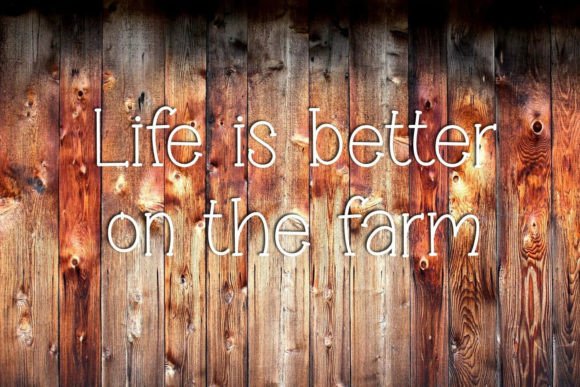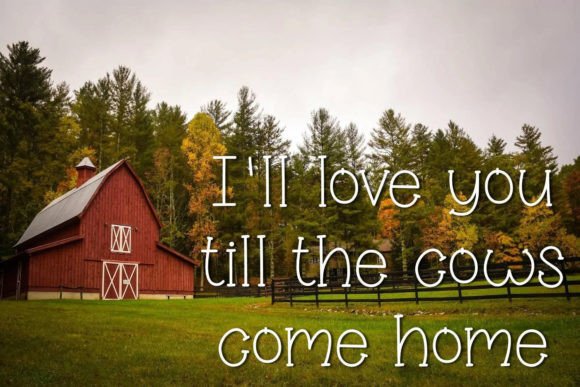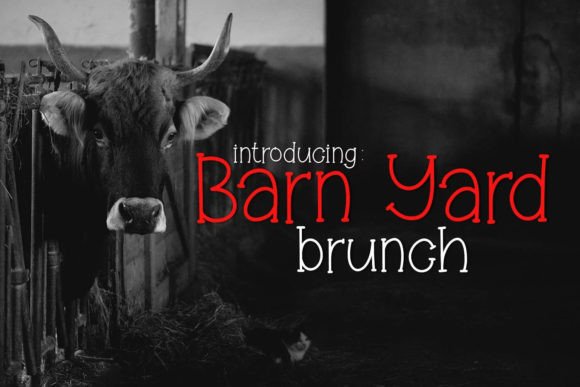
Introducing Barnyard Brunch: A Charming Handwritten Monoline Serif Font
Are you tired of using the same old fonts in your designs? Look no further! We’re excited to introduce Barnyard Brunch, a beautiful handwritten monoline serif font that’s perfect for adding a touch of rustic charm to your projects. In this article, we’ll take a closer look at Barnyard Brunch and explore the many ways you can use it to elevate your designs.
What is Barnyard Brunch?
Barnyard Brunch is a handwritten monoline serif font that’s inspired by the simplicity and elegance of rural life. With its clean lines, subtle curves, and charming character, this font is sure to capture the hearts of designers and crafters alike. Whether you’re working on a water bottle, card, invitation, or any other design project, Barnyard Brunch is the perfect choice.
Key Features of Barnyard Brunch
So, what makes Barnyard Brunch so special? Here are just a few of its key features:
- Handwritten monoline serif font: Barnyard Brunch has a unique, handwritten feel that’s perfect for adding a personal touch to your designs.
- Clean lines and subtle curves: The font’s clean lines and subtle curves give it a elegant, sophisticated look that’s perfect for a wide range of projects.
- Charming character: From the elegant letters to the playful punctuation, Barnyard Brunch has a charming character that’s sure to delight.
- Versatile: Whether you’re working on a water bottle, card, invitation, or any other design project, Barnyard Brunch is the perfect choice.
Uses for Barnyard Brunch
So, how can you use Barnyard Brunch in your designs? The possibilities are endless! Here are just a few ideas to get you started:
- Water bottles: Add a touch of rustic charm to your water bottle designs with Barnyard Brunch.
- Cards and invitations: Use Barnyard Brunch to create beautiful, one-of-a-kind cards and invitations for special occasions.
- Design projects: From posters to brochures, Barnyard Brunch is the perfect font for adding a touch of elegance and sophistication to your design projects.
- Crafting: Whether you’re working on a scrapbooking project or creating handmade gifts, Barnyard Brunch is a great choice for adding a personal touch.
Why Choose Barnyard Brunch?
With so many fonts to choose from, why should you choose Barnyard Brunch? Here are just a few reasons:
- Unique and eye-catching: Barnyard Brunch is a unique and eye-catching font that’s sure to stand out in a crowd.
- Elegant and sophisticated: With its clean lines and subtle curves, Barnyard Brunch has an elegant, sophisticated look that’s perfect for a wide range of projects.
- Easy to read: Despite its elegant look, Barnyard Brunch is easy to read, making it perfect for use in a variety of contexts.
- Versatile: Whether you’re working on a design project or crafting, Barnyard Brunch is a versatile font that’s perfect for a wide range of applications.
In conclusion, Barnyard Brunch is a beautiful handwritten monoline serif font that’s perfect for adding a touch of rustic charm to your designs. With its clean lines, subtle curves, and charming character, this font is sure to capture the hearts of designers and crafters alike. Whether you’re working on a water bottle, card, invitation, or any other design project, Barnyard Brunch is the perfect choice. So why wait? Download Barnyard Brunch today and start creating beautiful, one-of-a-kind designs!